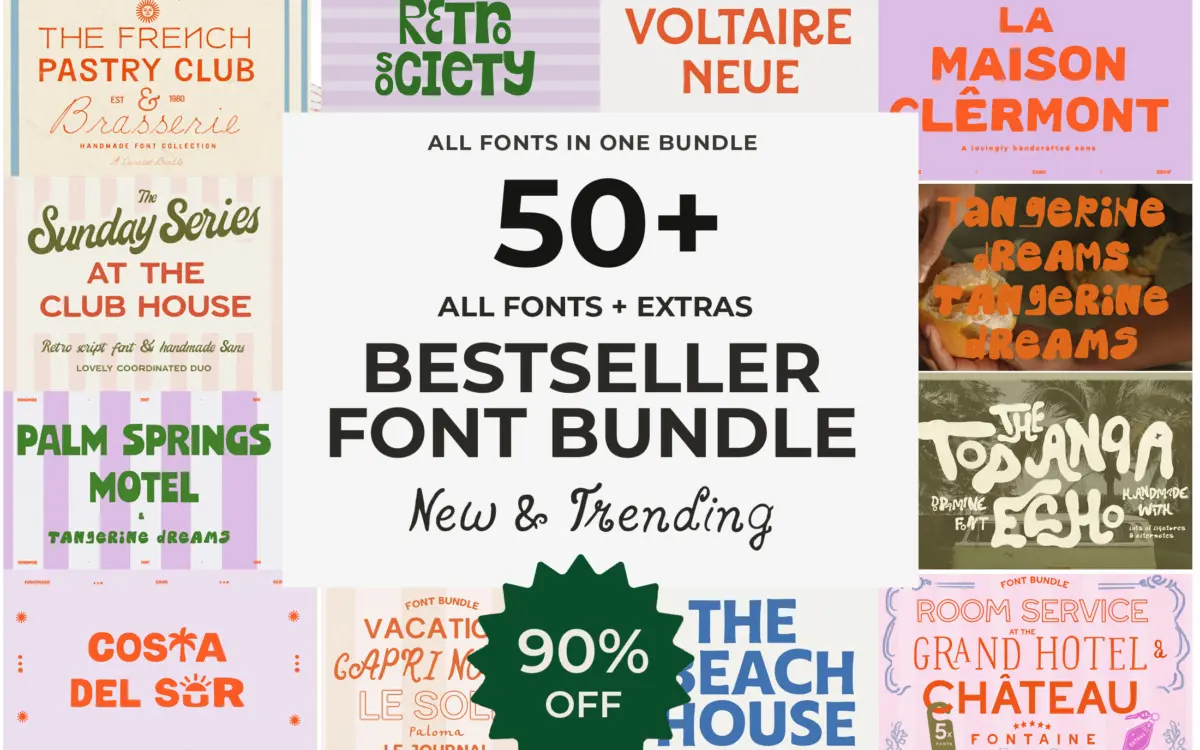
This isn’t one typeface, it’s a shop’s worth of them bundled together — more than fifty fonts from a single hand, spanning handmade sans serifs, marker-style scripts, whimsical calligraphy, and a scatter of symbol sets. The common thread is a hand-drawn, slightly imperfect quality: strokes wobble a little at the edges, terminals don’t quite match line to line, and the whole library leans into a vintage-meets-boho mood rather than clean geometric precision. If you’ve seen one of Laras Wonderland’s individual releases, you’ll recognise the family resemblance across the rest — same loose hand, same warmth, different letterforms.
Because it’s a bundle rather than a single design brief, quality and finish vary from face to face. Some of the sans serifs are drawn tightly enough to hold up as body text; others are clearly built for headlines only, with strokes too irregular for anything smaller than a poster. That inconsistency is the nature of a library like this — you’re buying variety, not a single unified system.
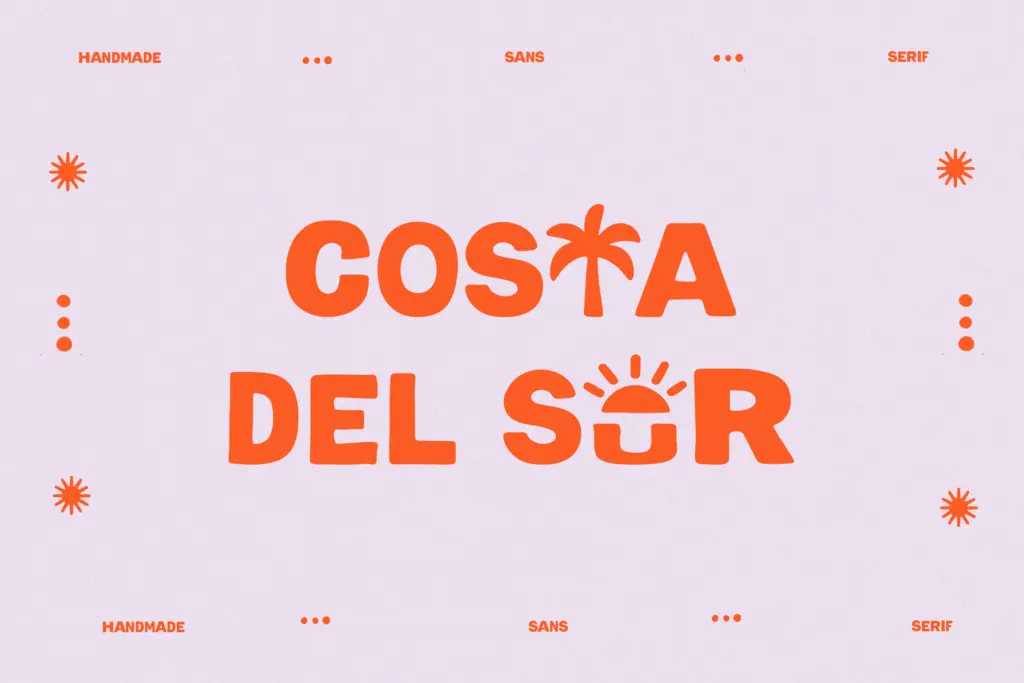
Most of the scripts and sans serifs include ligatures and alternate characters, which is the detail that actually matters here: swapping in an alternate lowercase letter or triggering a ligature is what keeps a hand-lettered word from looking like it was typed rather than written. Symbol fonts round out a few of the sets with ornaments, small illustrations, and dividers, useful for filling out a layout without hunting for separate clip art.
What you won’t get is a guarantee of deep language support or consistent OpenType feature sets across every single font in the pack — with a library this size, individual files differ in how thoroughly they’ve been built out. Treat each font as its own small product rather than assuming uniform features throughout.
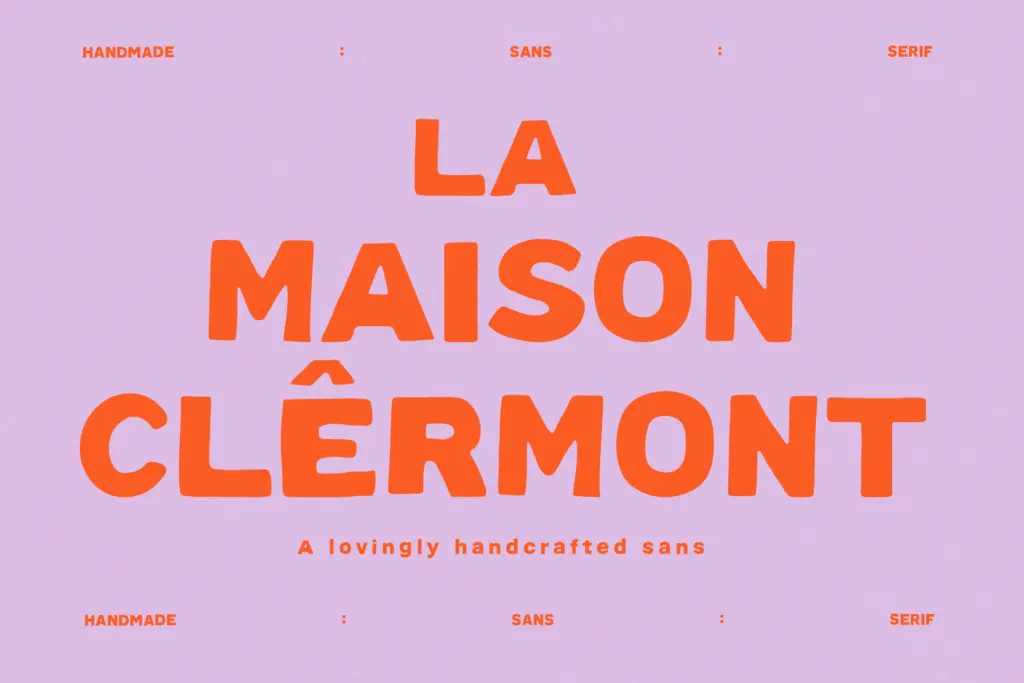
The obvious use is fast, varied output: a small studio or solo designer who needs a different hand-lettered feel for every client brief without starting from scratch each time. A boho wedding suite, a coastal-themed logo, a retro packaging label — the range covers a lot of moodboards. The bundled symbol sets are handy for greeting cards, social templates, and quick decorative flourishes where a plain word doesn’t fill the space.
It’s less suited to work that needs a single, coherent typographic voice across a whole brand system, since the fonts weren’t designed together — they were designed serially, over time, as separate products. If you need one script and one companion sans that were actually built as a pair, look at the font-duo releases within the bundle specifically rather than treating the whole library as a matched set. For headline and display use, spot decoration, and one-off projects where a hand-lettered feel is the main requirement, this earns its keep. For long-form editorial or anything requiring tight legibility at small sizes, test individual fonts before committing — some will hold up, others won’t.
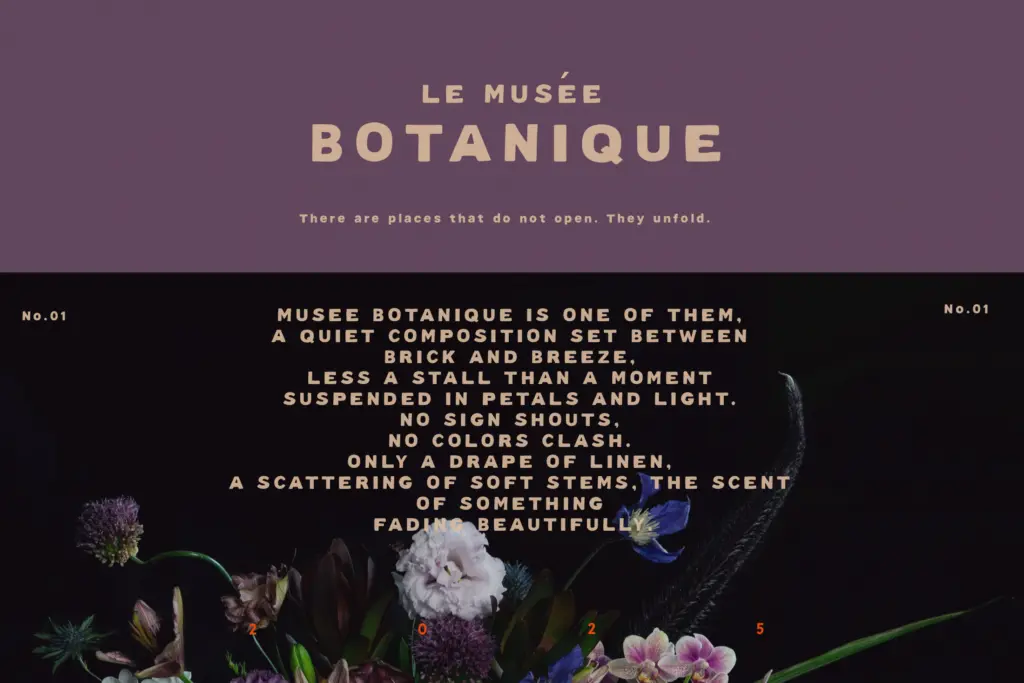
- Wide range of moods — sans, script, marker and symbol styles — under one purchase
- Ligatures and alternates on most scripts keep hand-lettered words looking natural
- Bundled symbol sets save time hunting for matching decorative elements
- Quality and feature depth vary noticeably between the fifty-plus individual fonts
- Not designed as a unified system, so pairing fonts from within the bundle takes testing
A large, varied bundle of hand-drawn fonts that's genuinely useful for designers who need a different lettered mood for every project, but quality and legibility swing from font to font since these were never designed as one system. Buy it for the range, not for a single standout typeface.